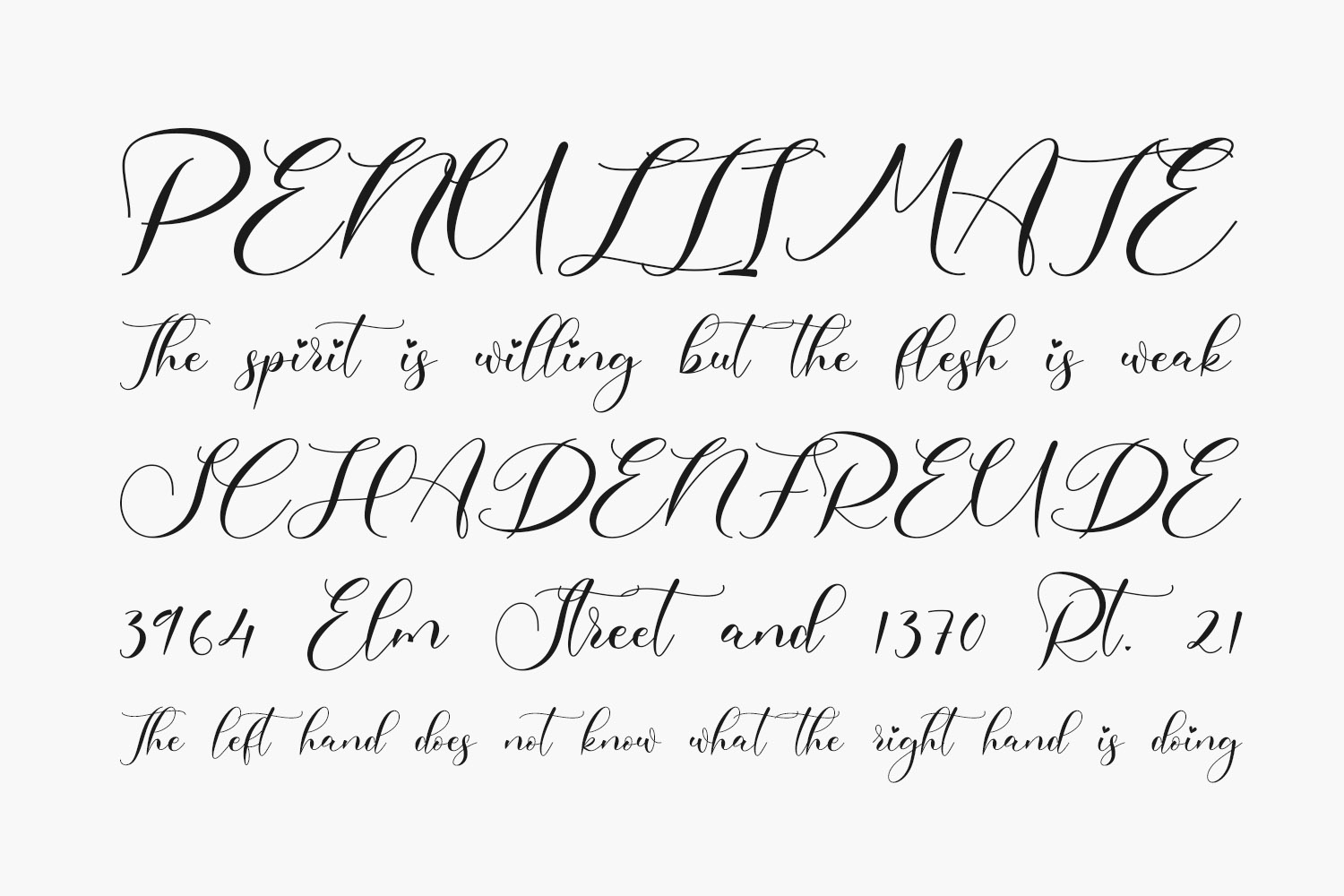
Freelove Free Font is a beautiful and charming font script that will add a unique flavor to your next craft design. Freelove Free Font was designed by NanaNissa and is free for personal use only. Please purchase the full version for commercial use.